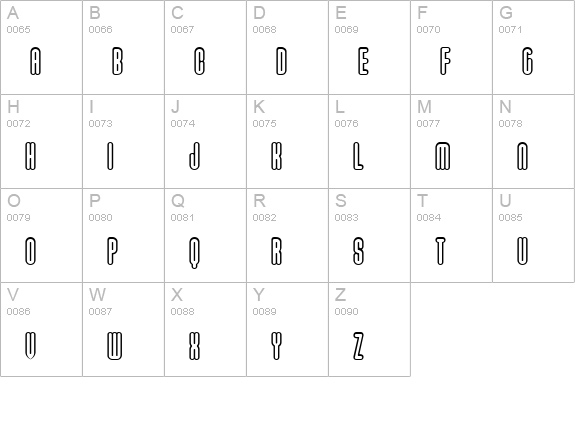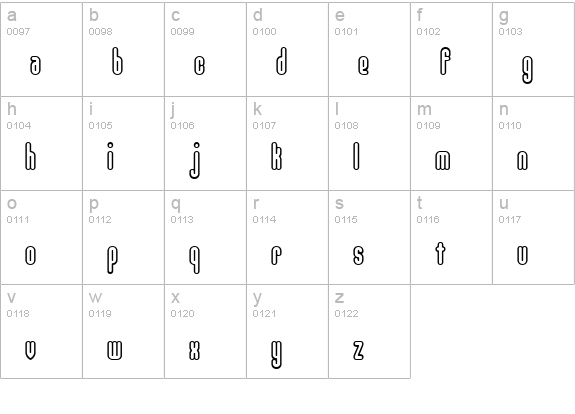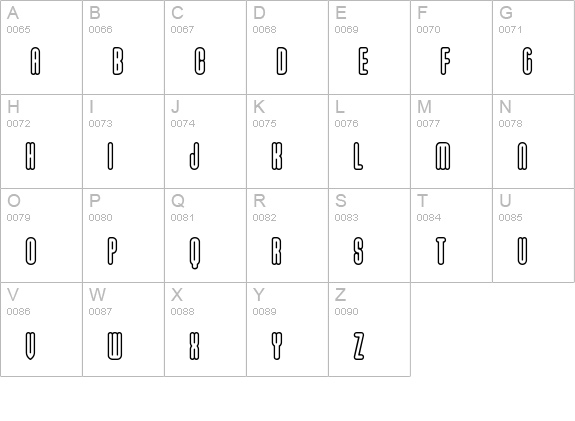
Unanimous BRK Font Details
Unanimous BRK font is a stunning typeface that effortlessly combines elegance and modernity. With its sleek lines and sophisticated curves, this font is perfect for a wide range of design projects, from branding and advertising to web and print. The Unanimous BRK font is not only visually appealing but also incredibly versatile. Its clean and crisp design makes it easily readable in both large headlines and small body text. Whether you're creating a bold statement or conveying a subtle message, this font will always deliver. One of the best things about Unanimous BRK font is that it is free. Yes, you read that right! This incredible font is freely available to download at FontsMarket.com. You don't have to worry about breaking the bank to get your hands on this gem. Simply head over to FontsMarket.com, download it, and start using it in your projects right away. Unanimous BRK font is a true game-changer in the world of typography. Its timeless beauty combined with its accessibility and affordability make it a must-have for any designer or creative professional. So why wait? Take advantage of the opportunity to enhance your designs with this remarkable font today. Download Unanimous BRK font from FontsMarket.com and let your creativity soar to new heights.